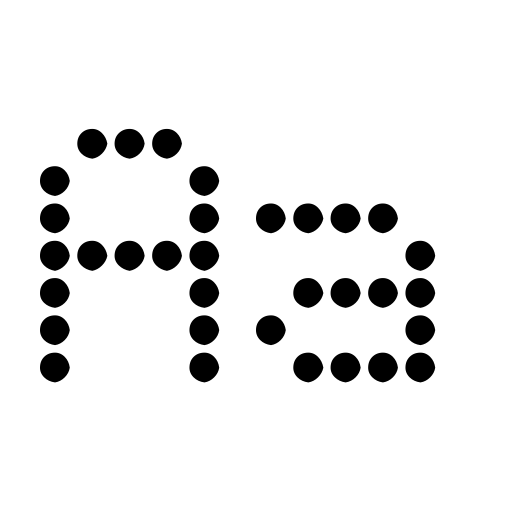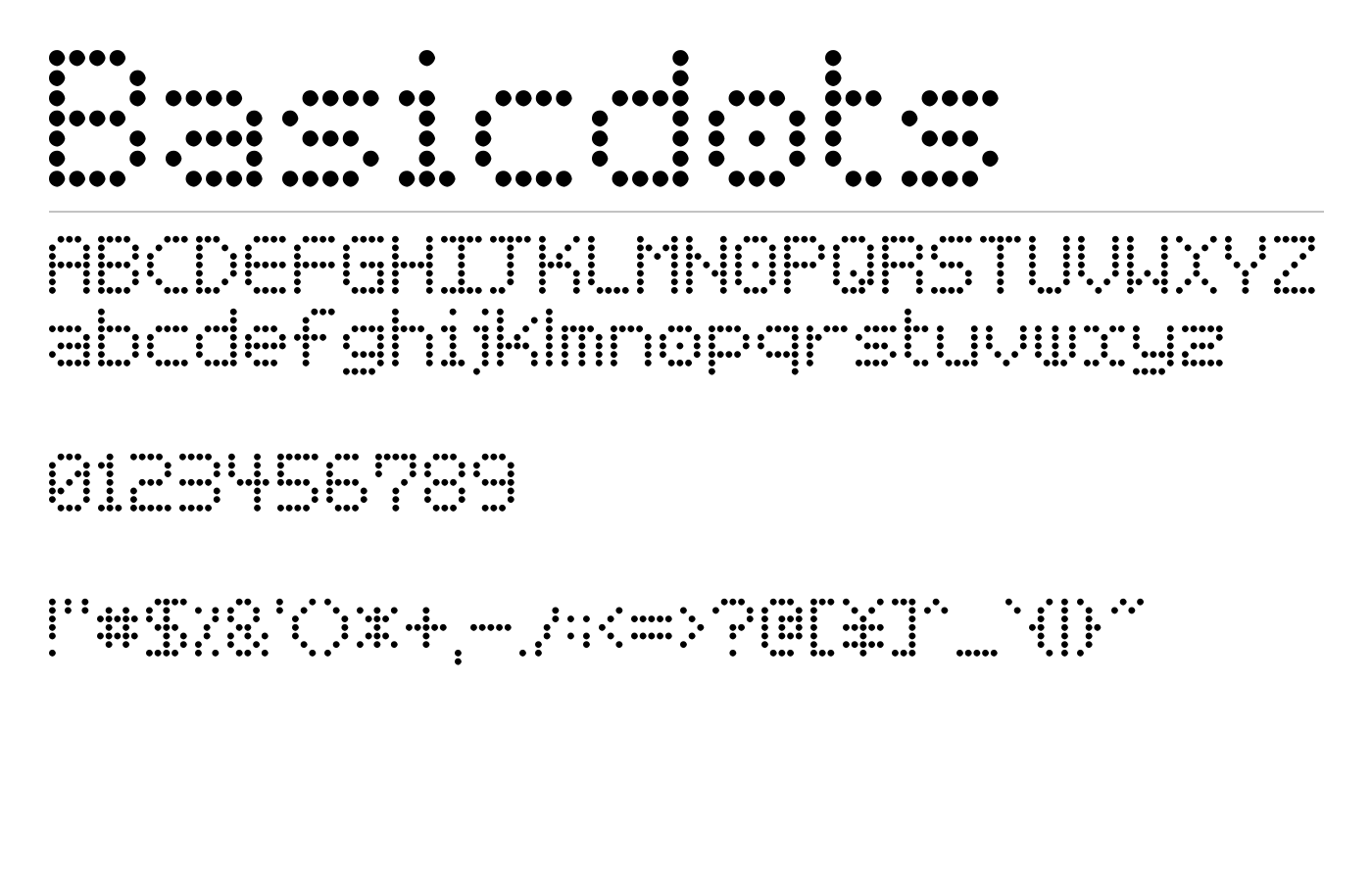
Basicdots is a modern, playful sans serif font composed entirely of evenly spaced dots that create a light, airy impression. Its unique dotted construction gives it a digital, tech-inspired feel, making it ideal for eye-catching headlines, logos, and creative projects that seek a futuristic or minimalist aesthetic. This font works best in display settings where its distinctive style can shine without sacrificing readability.
Basicdots Font
About Basicdots Font